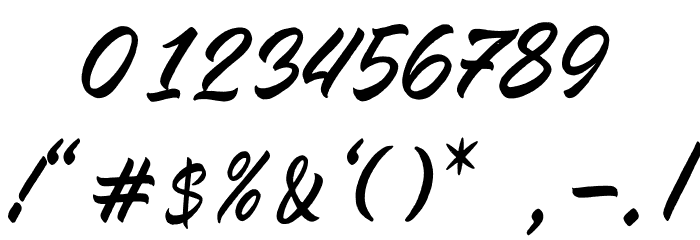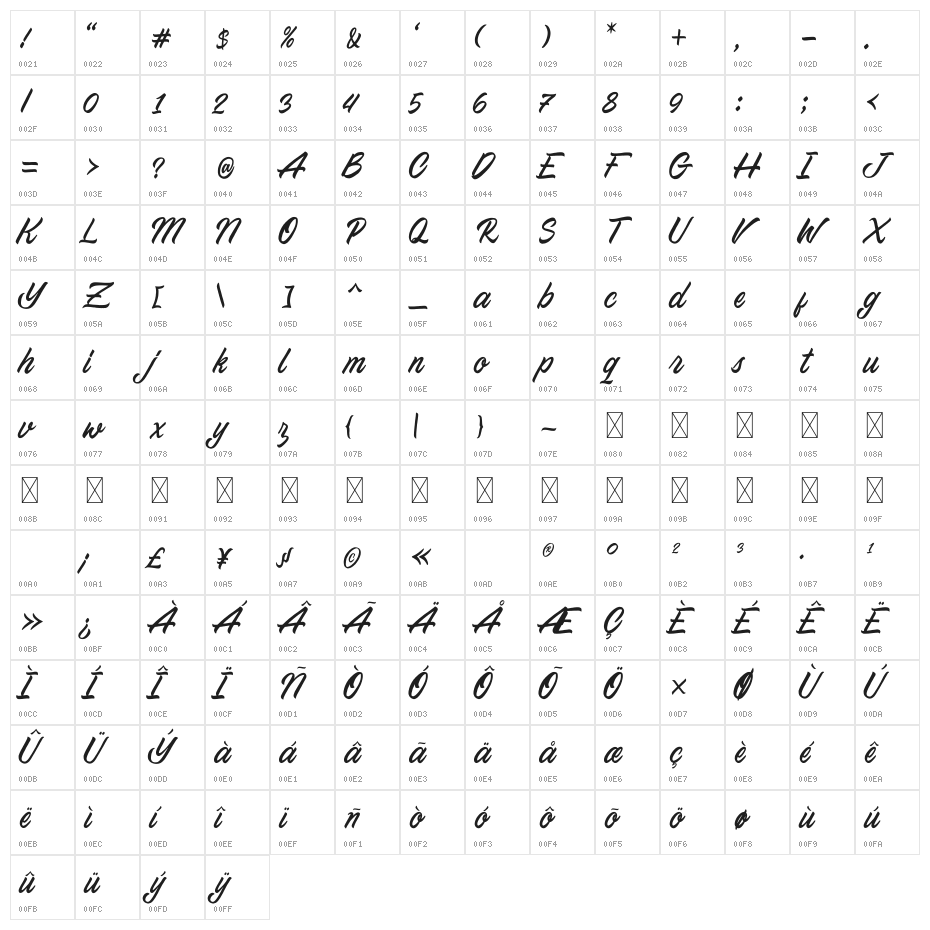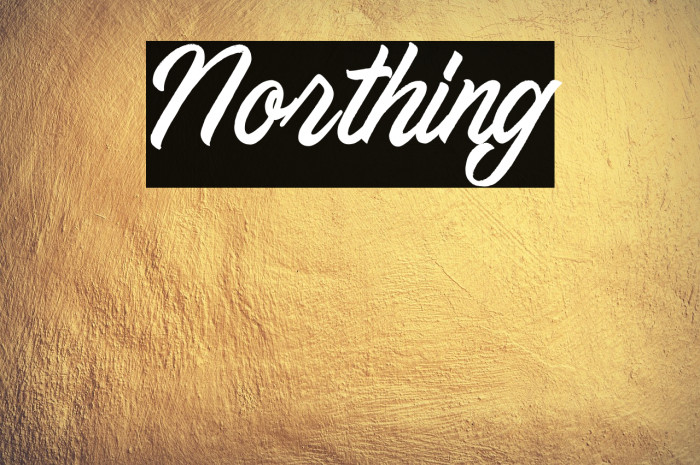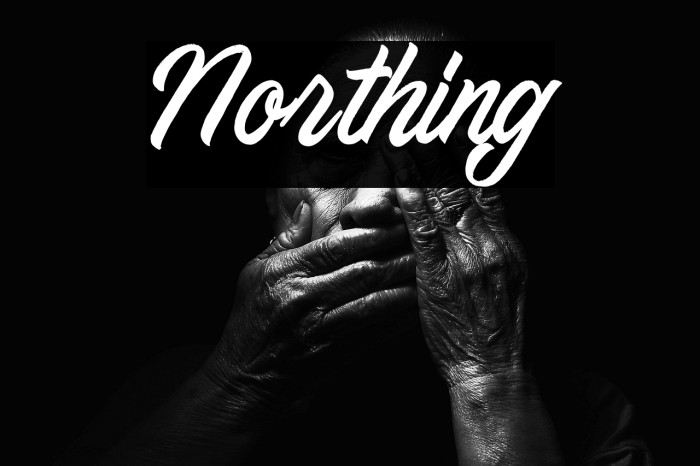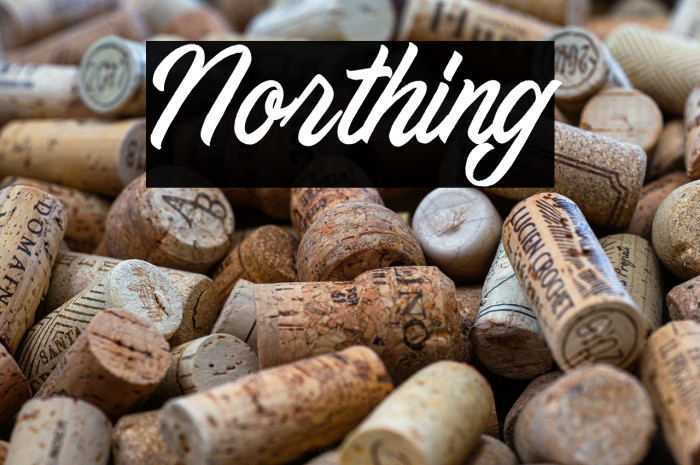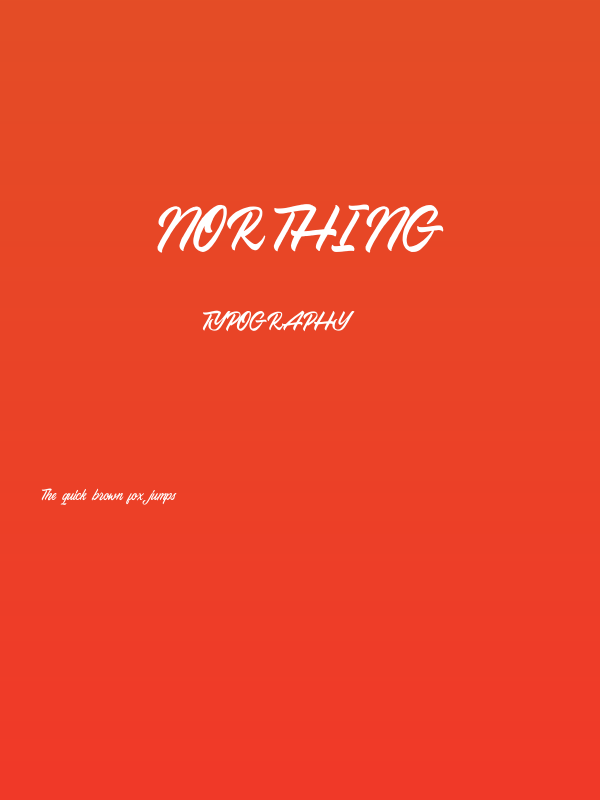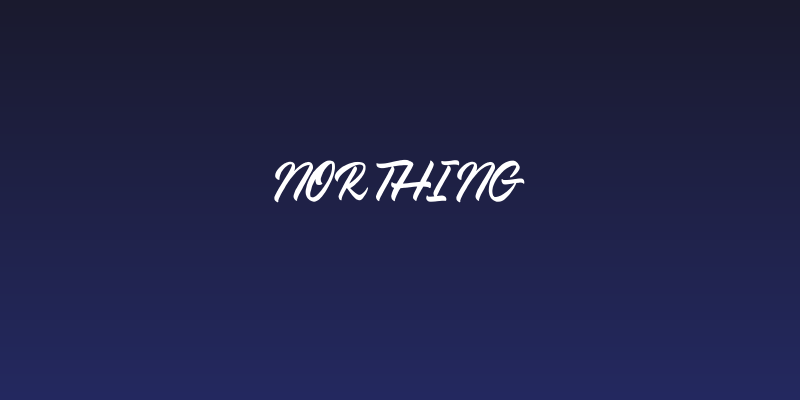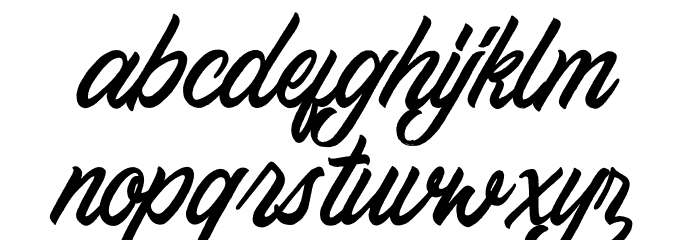
Northing Font
Northing Description
This font features a bold and expressive script style, characterized by its flowing, cursive letters that mimic the fluidity of handwriting. The uppercase letters are elegantly connected, while the lowercase letters maintain a consistent slant, adding to the dynamic movement of the text. The numerals and special characters are designed to complement the overall script aesthetic, ensuring a cohesive look across all characters. The strokes are thick and consistent, providing a strong visual impact, making it suitable for attention-grabbing designs.